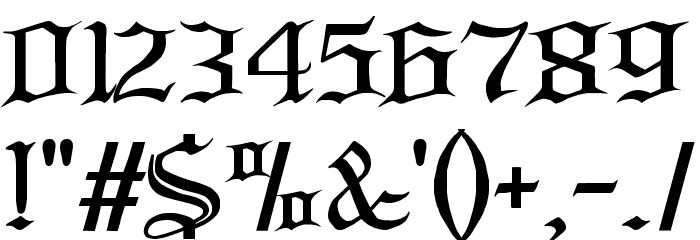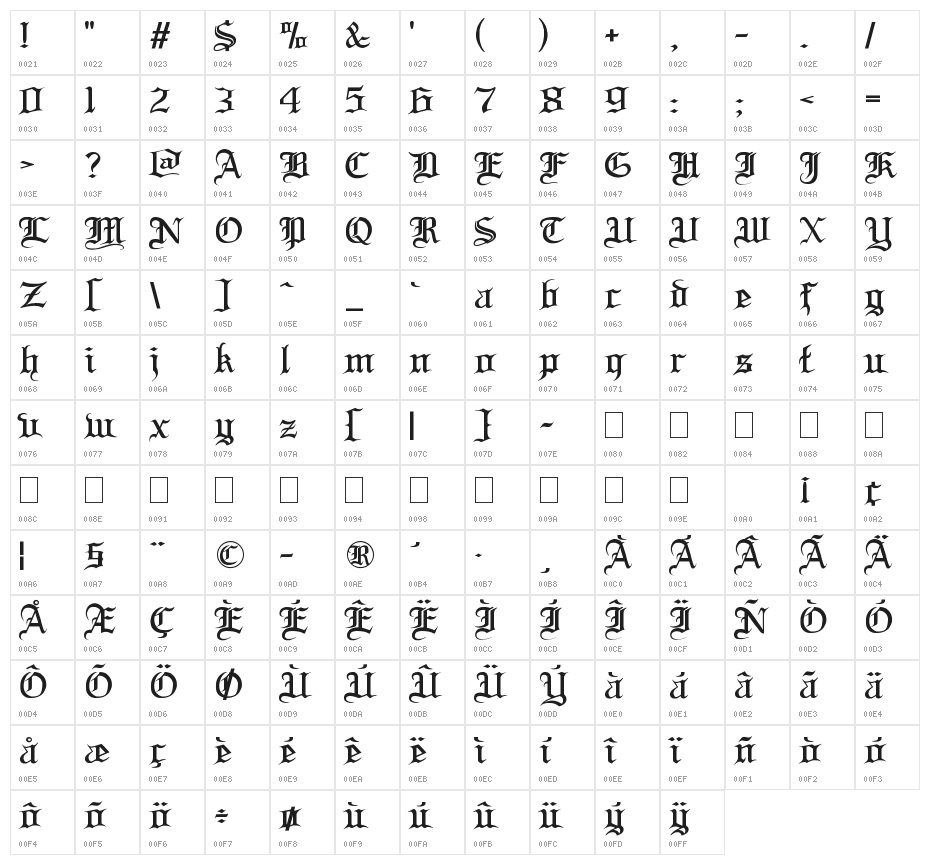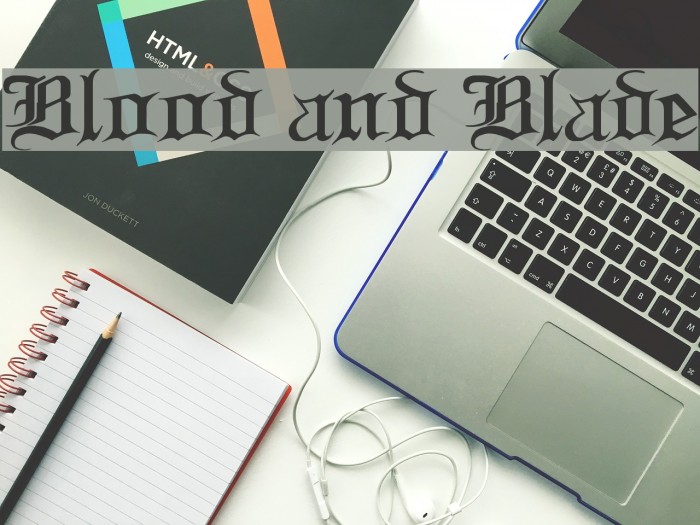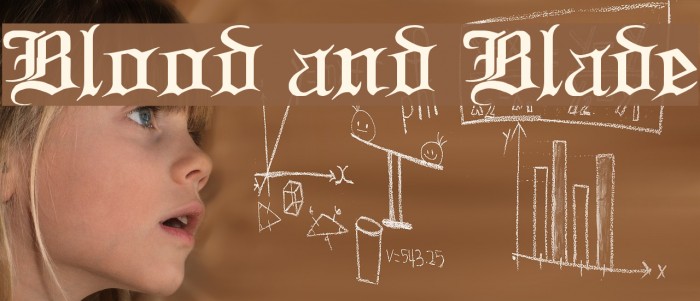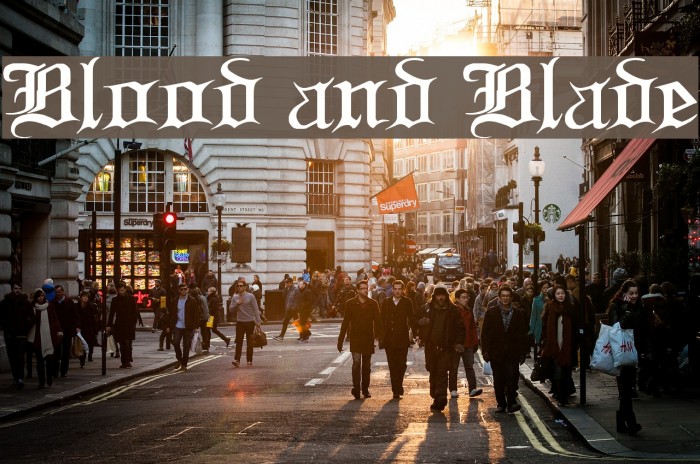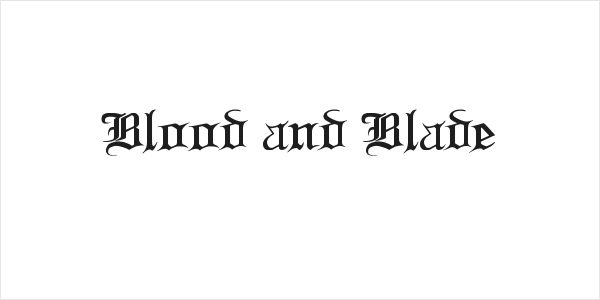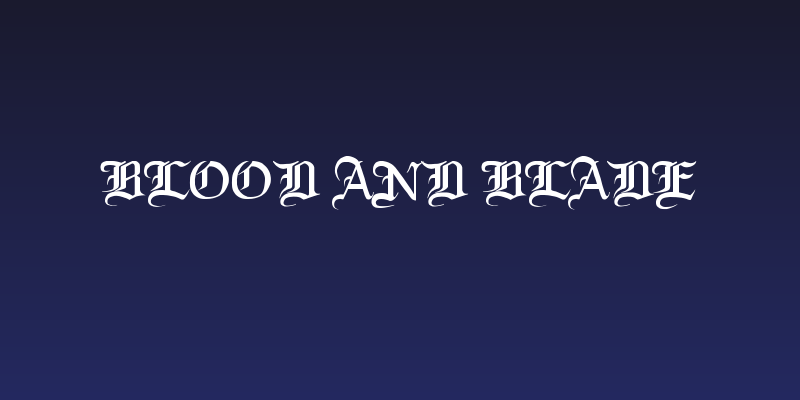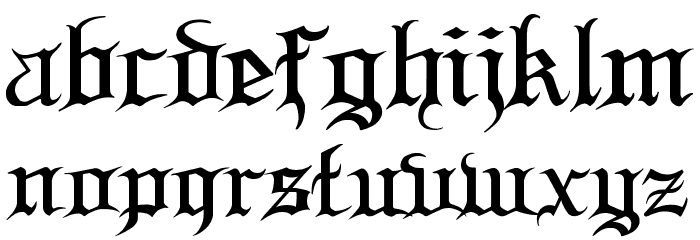
Blood and Blade Font
Blood and Blade Description
This font features a dramatic and ornate style, reminiscent of medieval script with a modern twist. The characters are bold and angular, with sharp edges and intricate details that give it a gothic appearance. The uppercase letters are particularly elaborate, with decorative flourishes that extend from the main strokes. The lowercase letters maintain the same intricate style but are slightly more subdued in their embellishments. Numbers and special characters follow the same design principles, ensuring a cohesive look across all glyphs. The overall impression is one of strength and elegance, making it suitable for projects that require a bold and distinctive typeface.
| Overall Style | Gothic, Medieval |
| Use Case | Headlines, Logos, Decorative text |
| Proposed Projects | Ideal for use in branding, posters, book covers, and any design requiring a dramatic and historical feel. |